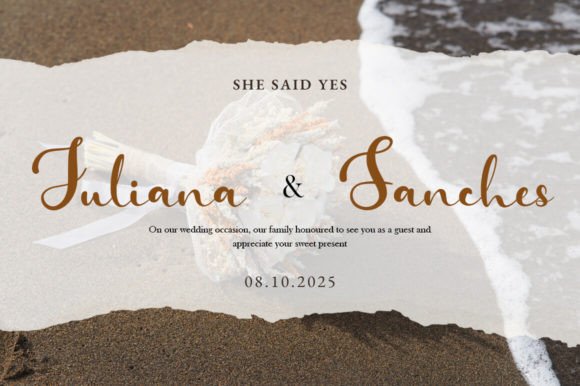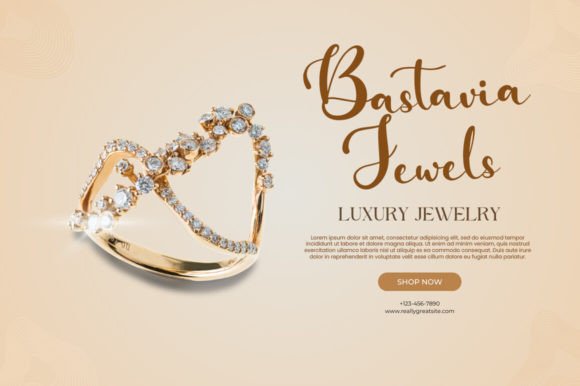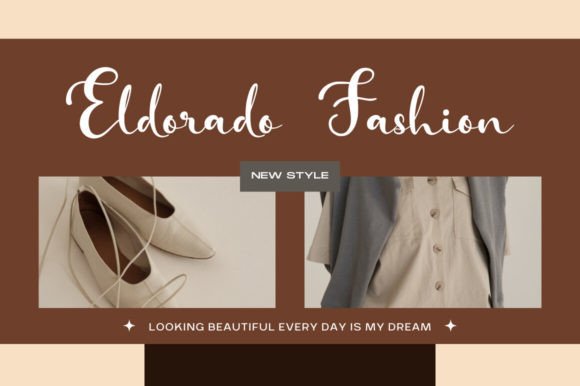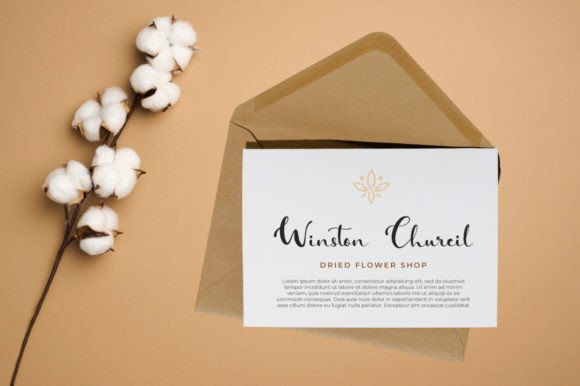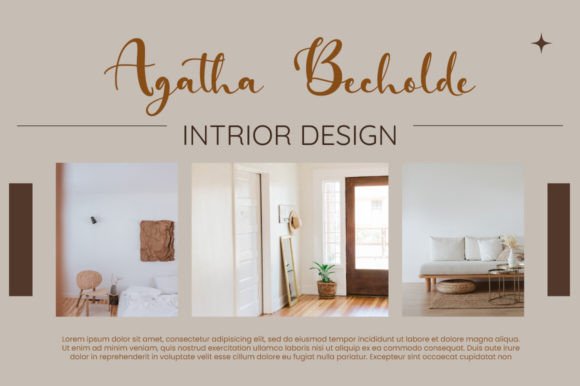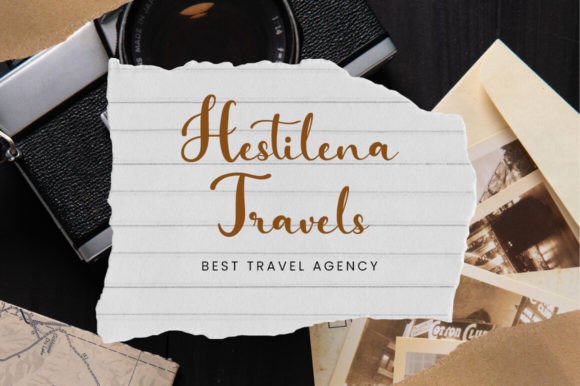
Introduction to Furbished Font
Furbished is a stylish handwritten script font exuding elegance and charm.
Its fluid strokes and natural flow create a captivating, sophisticated look Perfect for adding a personal touch to invitations, branding, or social media, this font brings a sense of warmth and creativity to any design.
Furbished Font offers exceptional quality and versatility, making it a valuable addition to your design toolkit. Whether you’re creating for personal projects or commercial use, Furbished Font delivers professional results.